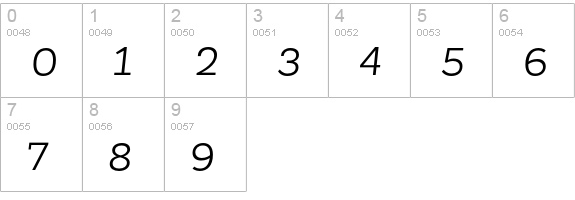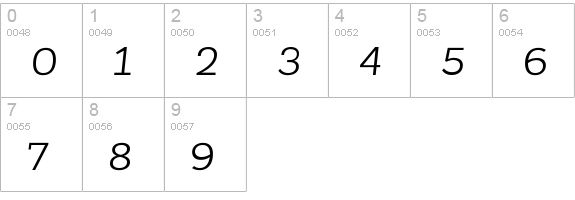
Newslab Light Italic Font Details
Newslab Light Italic is a refined, elegant, italic variant in the Newslab typeface family \xE2\x80\x94 well suited to elegant body text, refined sub-headings, and luxury branding.
Introducing Newslab Light Italic font, a sleek and modern typeface that exudes elegance and sophistication. With its delicate curves and stylish design, this font is perfect for adding a touch of refinement to any project. The italicized style adds a unique flair, making your text stand out in a subtle yet impactful way. What sets Newslab Light Italic font apart is that it is available for free download at FontsMarket.com. Yes, you read that right - this high-quality font can be yours at no cost, allowing you to elevate your designs without breaking the bank. Whether you're working on a logo, website, or print materials, Newslab Light Italic font is sure to impress with its versatility and charm. Don't miss out on this fantastic opportunity to enhance your projects with the beauty of Newslab Light Italic font. Download it today and let your creativity shine!